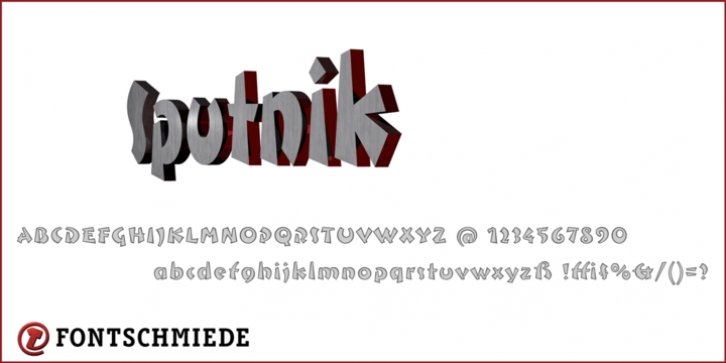
Sputnik downloadDesigner: Frank Baranowski
Publisher: Fontschmiede
Bold-faced and fancy-shaped Sputnik makes any kind of typing a funny game. With simply but surprisingly characters this font has a cool look. And the uneven outline style is all odds.
Sputnik is available in regular and outline. Both styles have the same kerning, so, for best graphic results, you can combine them using layer techniques.